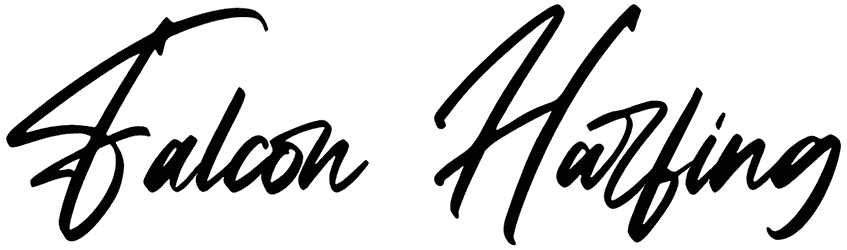
Falcon Harfing Font
Falcon Harfing is a fast handwritten font, which is brilliant for one cursive typography that has a vintage feel. It provides brush letter characters that are stylish. This font can be challenging to read, but its lovely display is worth the effort.
It includes a full set of letterforms that are realistic. No matter what your project is Falcon Harfing will astonish you wherever it is carried. Branding, logos, magazines, weddings, and posters are a few places to include it.